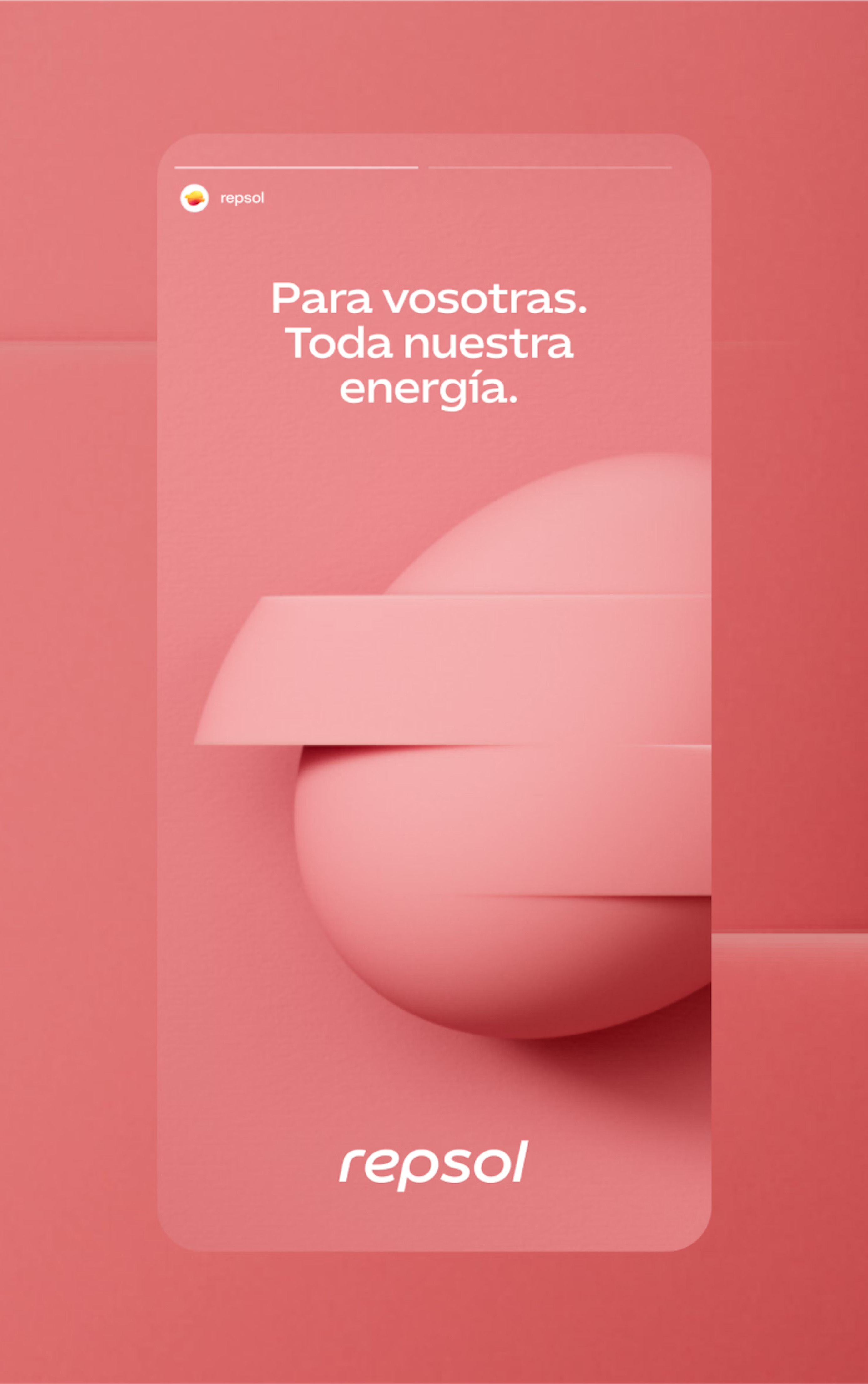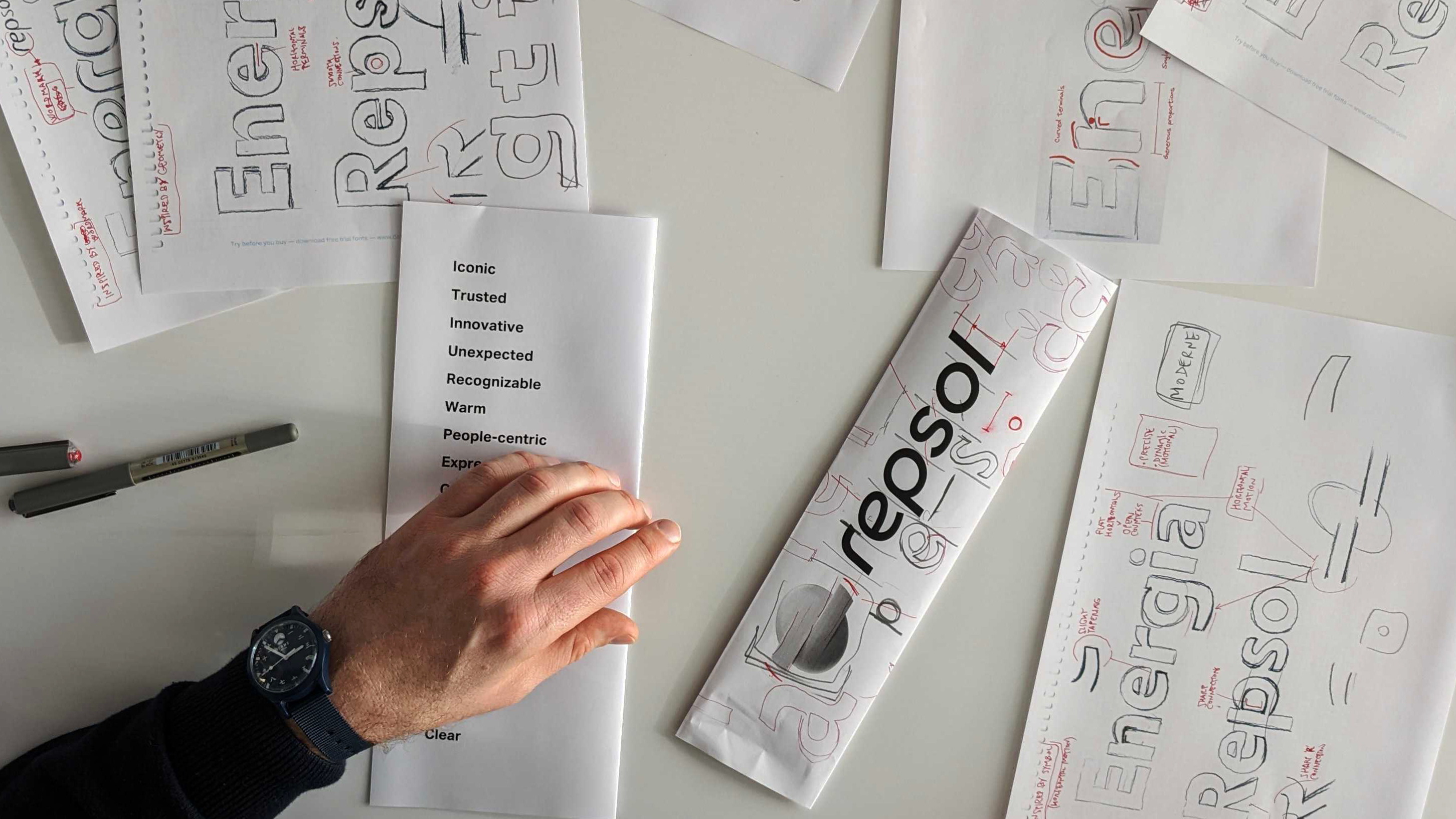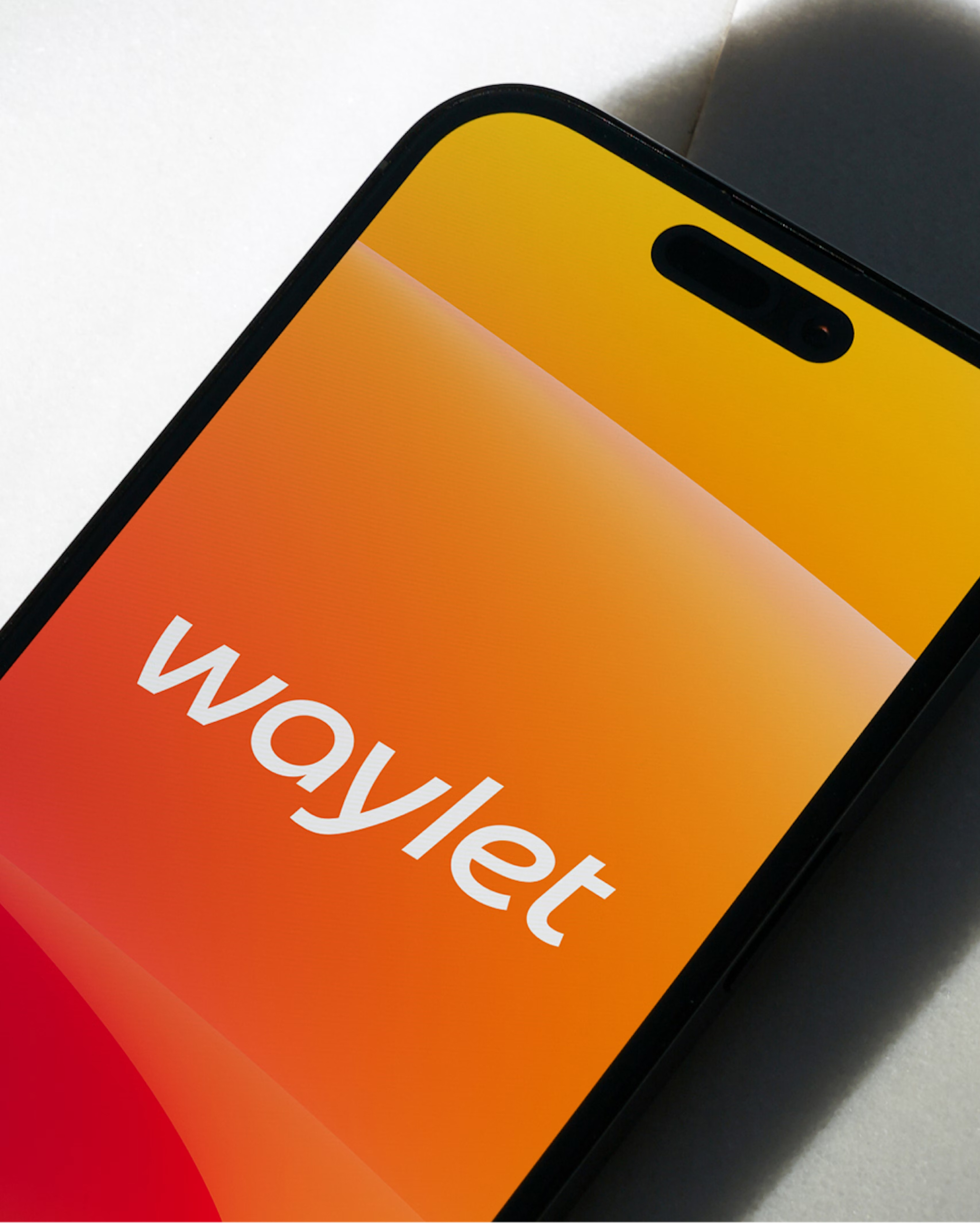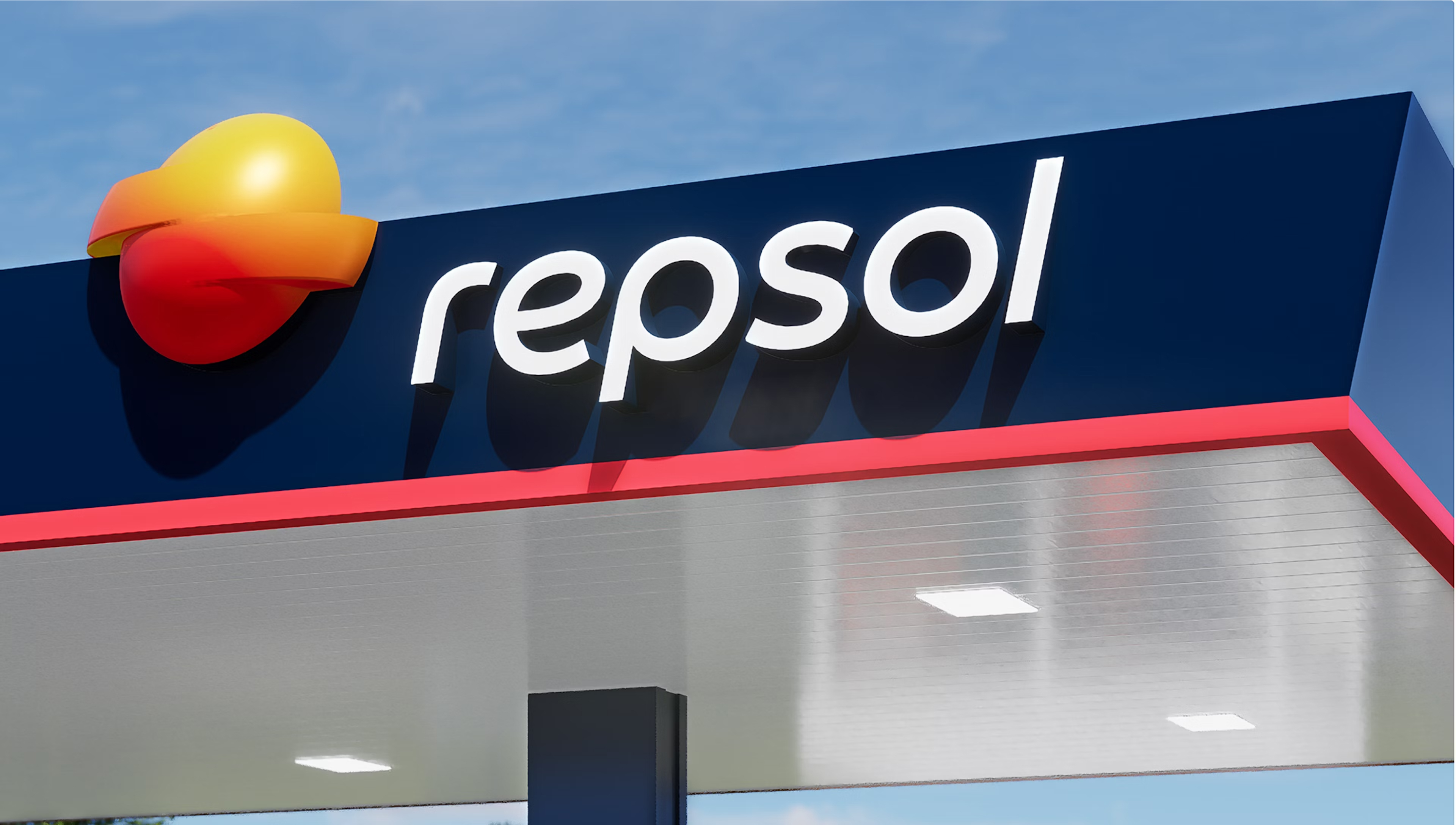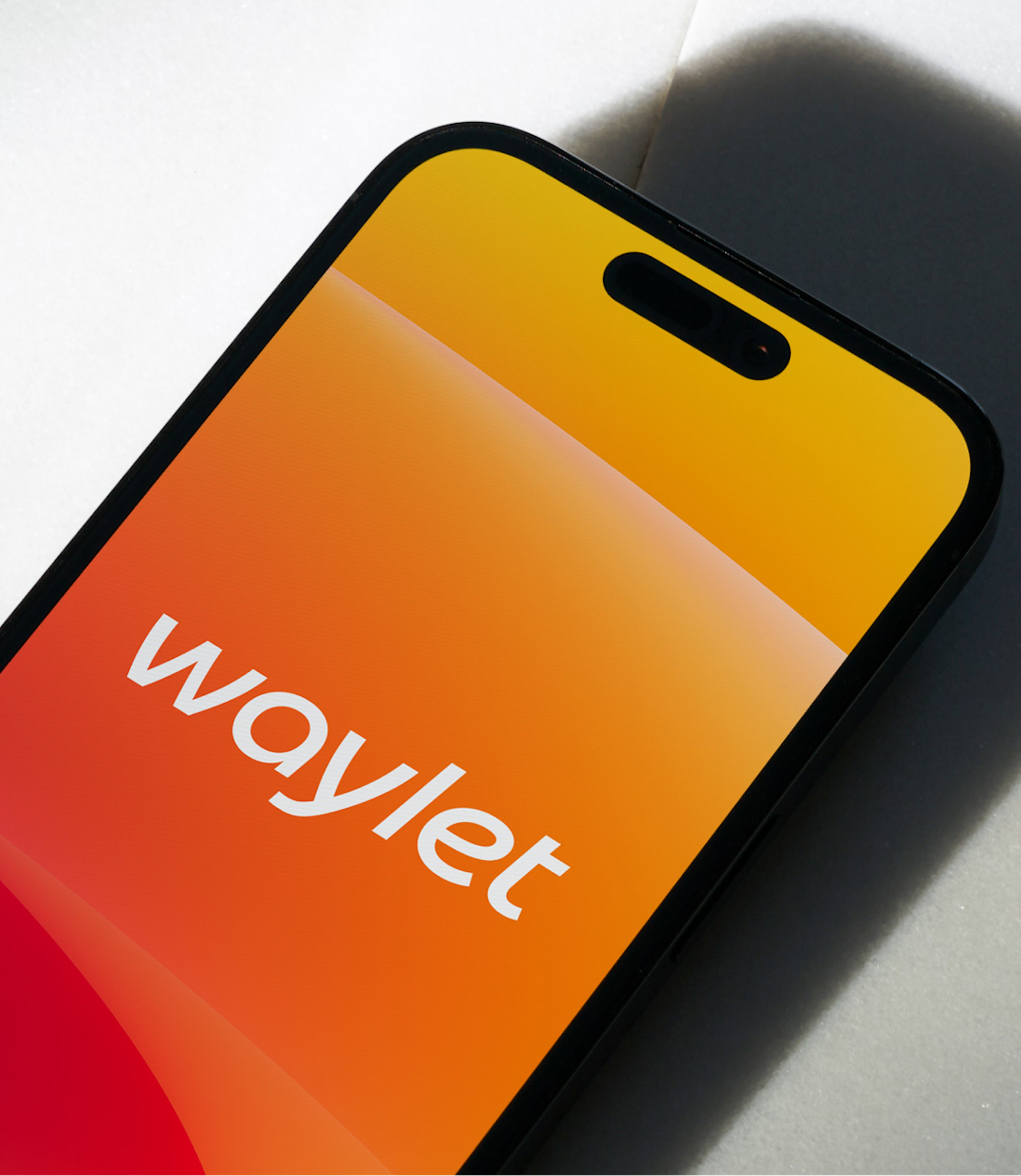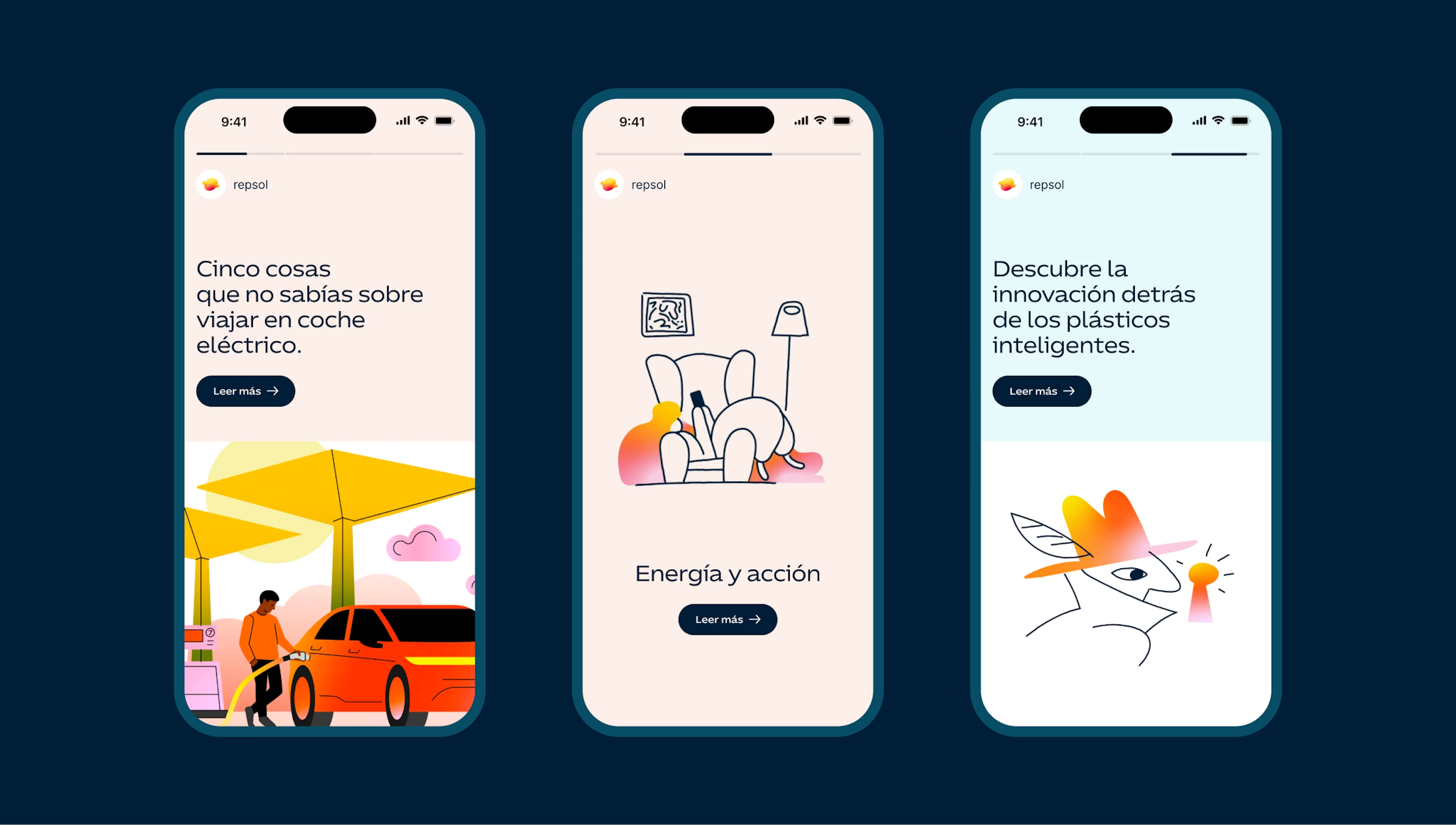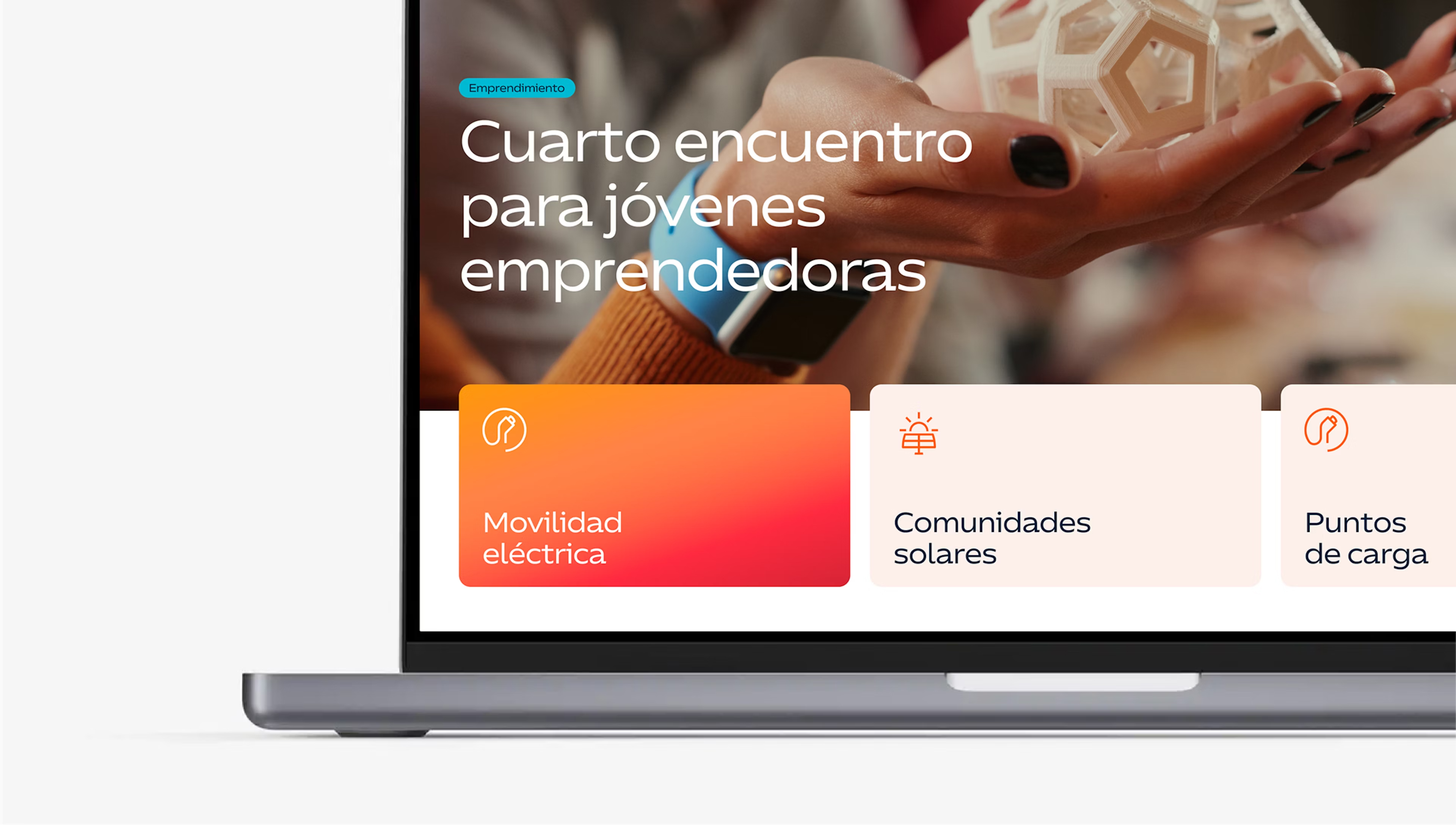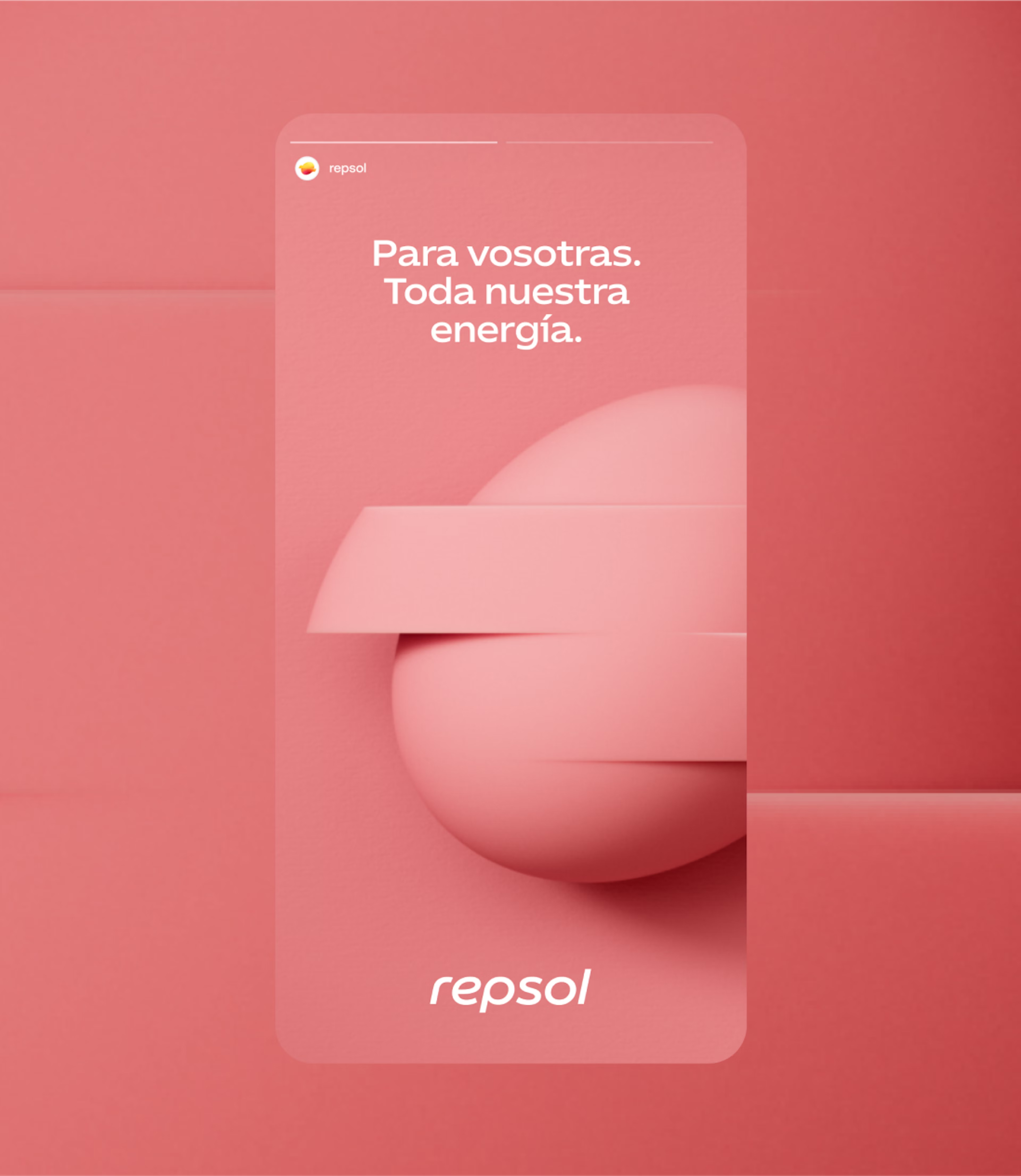
Repsol Sole
A Custom Font Suite for Repsol
We worked with brand consultancy Saffron to create a custom typeface to support their transformation of global energy company, Repsol. The typeface balances innovation with continuity, harmonizing with Repsol’s evolving identity and redesigned symbol.
Repsol Font Suite, Custom Font Family, 2024
Writing Systems
Latin
Language Support
Over 790 languages
Exclusive to Repsol
Logo Font
Repsol Sole Logo weightrun
Display
Repsol Sole Display weightrun
Text
Repsol Sole Text weightrun